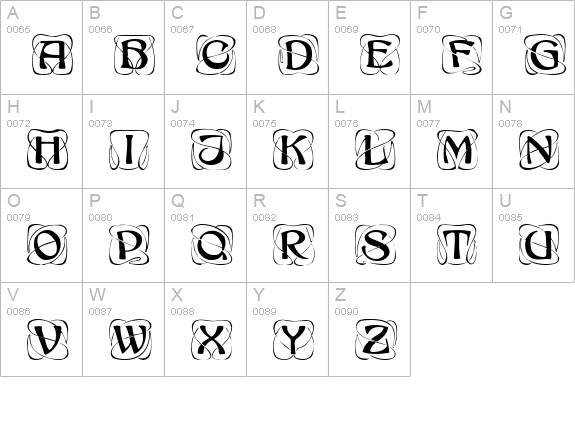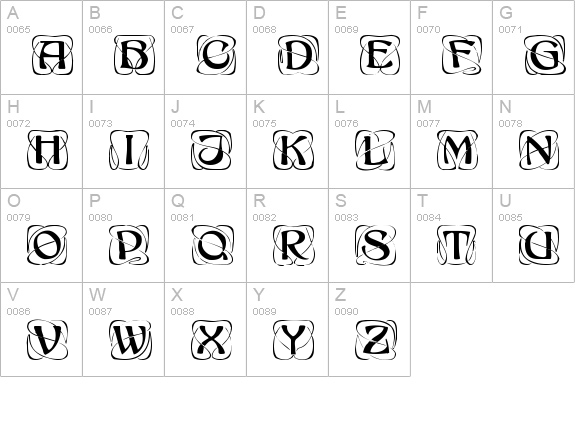
Adage Display Caps SSi Font Details
Adage Display Caps SSi font is a striking and elegant typeface that exudes sophistication and class. With its bold, uppercase letters and distinctive style, this font is perfect for making a statement in headlines, posters, and logos. The sleek and modern design of Adage Display Caps SSi font commands attention and adds a touch of luxury to any project. Best of all, Adage Display Caps SSi font is available for free download at FontsMarket.com. This means you can easily access this premium font without breaking the bank. Whether you're a designer looking to add a touch of flair to your work or a business owner wanting to elevate your branding, Adage Display Caps SSi font is a versatile and stylish choice that won't cost you a dime. Download it today and see for yourself the impact it can make on your designs.